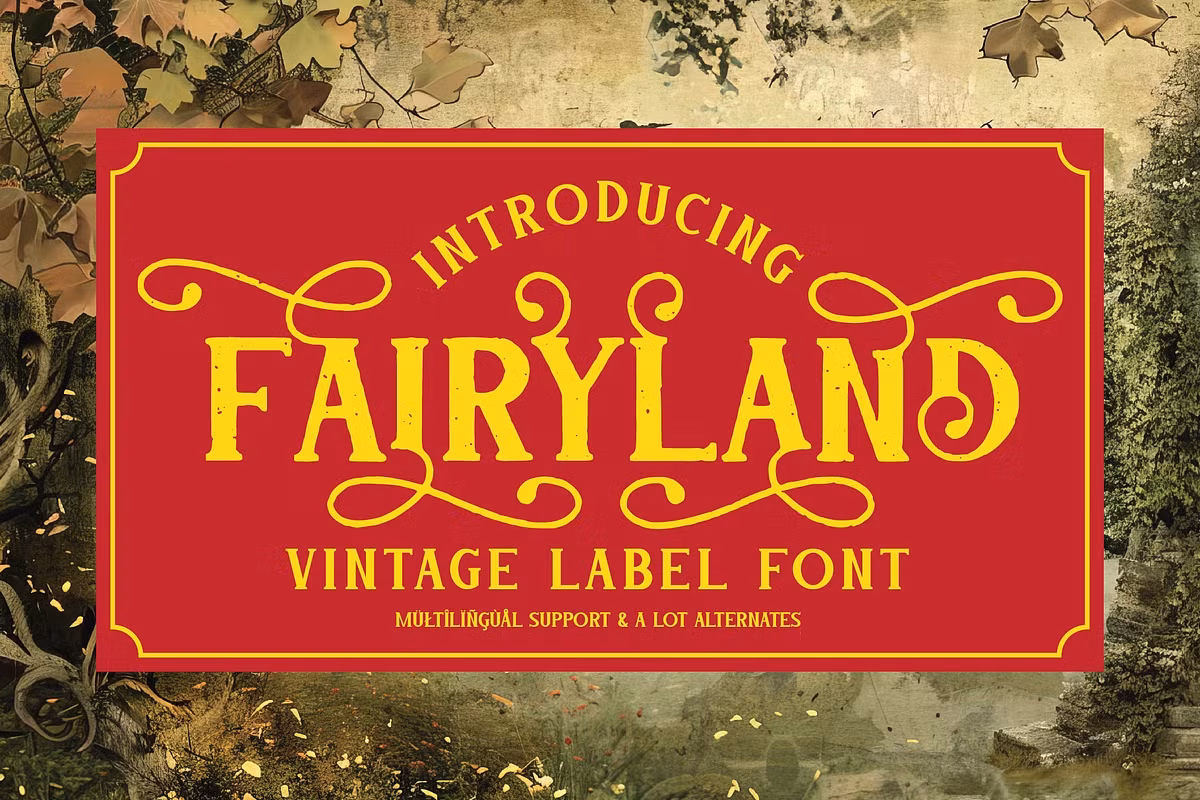
The Fairyland Label Font Free Download is a whimsical and charming typeface that adds a playful, magical touch to your designs. With its vintage-inspired letterforms and fun, quirky style, this font is perfect for creating enchanting labels, logos, invitations, and branding materials. The unique, hand-crafted feel of this font makes it ideal for projects with a fairytale or fantasy theme. Please note, for commercial use, a license purchase is required. However, you can easily download the Fairyland Label Font Free Download for free for personal use and explore its creative potential. Whether you're designing for children's products, event invitations, or any whimsical project, this font will add an imaginative and inviting touch to your typography. Download the Fairyland Label Font Free Download today and bring a bit of magic and fun to your designs.